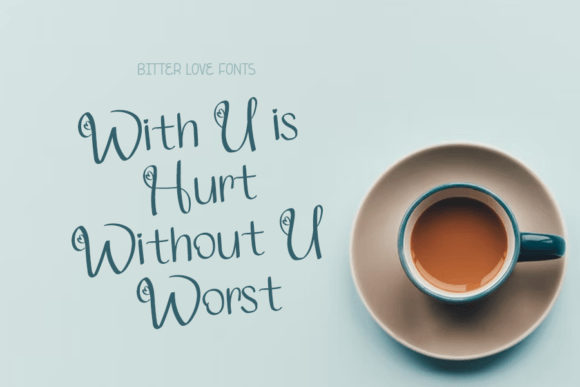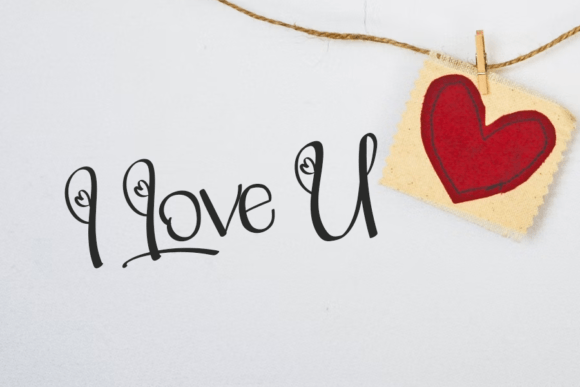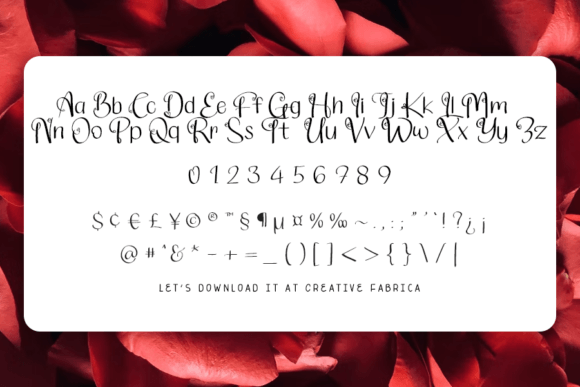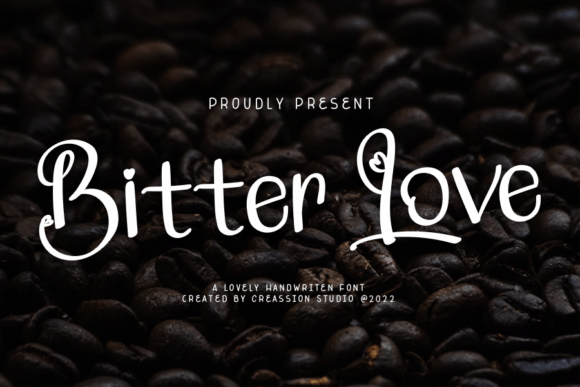
Bitter Love Font: The Perfect Choice for Romantic Designs
Are you looking for a font that exudes elegance and charm for your romantic designs? Look no further than the Bitter Love Font. This beautiful, handwritten font is perfect for adding a touch of sophistication and whimsy to your projects. In this article, we’ll explore the features and benefits of Bitter Love Font, and why it’s a must-have for designers and crafters.
The Charm of Bitter Love Font
Bitter Love Font feels equally charming and elegant, making it an excellent choice for a variety of design projects. Its romantic and whimsical feel is perfect for wedding invitations, thank you cards, quotes, greeting cards, logos, business cards, and every other design that needs a romantic handwritten touch. The font’s unique and elegant style is sure to capture the hearts of your audience and leave a lasting impression.
Features of Bitter Love Font
• Handwritten style: Bitter Love Font has a beautiful, handwritten style that adds a personal touch to your designs.
• Elegant and charming: The font’s elegant and charming feel makes it perfect for romantic designs.
• Versatile: Bitter Love Font can be used for a variety of design projects, from wedding invitations to business cards.
• Easy to read: The font is easy to read, making it perfect for quotes, greeting cards, and other designs where readability is important.
Benefits of Using Bitter Love Font
Using Bitter Love Font in your designs offers several benefits. Here are a few:
• Adds a personal touch: The font’s handwritten style adds a personal touch to your designs, making them more relatable and engaging.
• Creates a romantic feel: Bitter Love Font is perfect for creating a romantic feel in your designs, making it ideal for wedding invitations, anniversary cards, and other romantic designs.
• Enhances creativity: The font’s unique and elegant style can inspire creativity and help you create unique and eye-catching designs.
• Perfect for crafters: Bitter Love Font is also perfect for crafters who want to add a personal touch to their DIY projects, such as handmade cards, scrapbooking, and other paper crafts.
Using Bitter Love Font in Your Designs
In conclusion, Bitter Love Font is a beautiful and elegant font that is perfect for romantic designs. Its handwritten style, elegant feel, and versatility make it a must-have for designers and crafters. Whether you’re creating wedding invitations, greeting cards, or other designs that need a romantic touch, Bitter Love Font is the perfect choice. So why wait? Download Bitter Love Font today and start creating stunning designs that will capture the hearts of your audience.
Key Takeaways
• Bitter Love Font is a beautiful, handwritten font that adds a touch of elegance and sophistication to designs.
• The font is perfect for romantic designs, such as wedding invitations, greeting cards, and quotes.
• Bitter Love Font is versatile and can be used for a variety of design projects, from digital to print designs.
• The font is easy to read and can be paired with other fonts to create a unique design.
Overall, Bitter Love Font is a great addition to any designer’s or crafter’s font collection. Its unique and elegant style is sure to inspire creativity and help you create stunning designs that will leave a lasting impression.